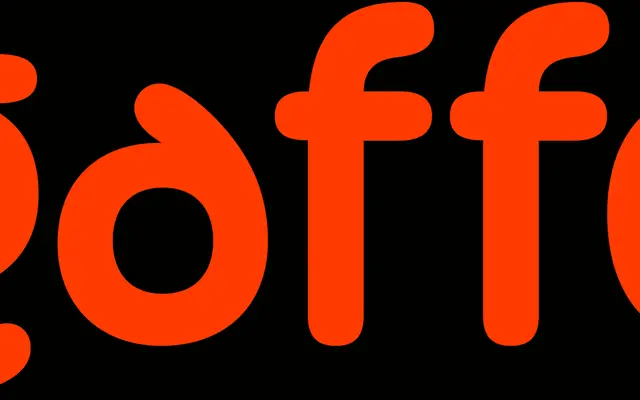
OZIK Soft
A rounded offshoot of Nuform Type's geometric OZIK, softening its sharp edges into warm, circular terminals inspired partly by VAG Rounded.
Built from the same circular geometry as OZIK, this variant replaces sharp details with rounded terminals across a range of weights from Regular to Black. The rounding process required significant redrawing, including adjustments to letter width, diagonal strokes and select letterforms that diverged from the original to preserve a distinct identity. Stylistic alternates for 'a', 'e' and 'g' are included to address legibility at smaller sizes.
OZIK Soft is a rounded geometric sans-serif with circular construction and soft terminals, derived from the geometric OZIK. Its rounded edges and welcoming curves place it firmly in the display category with geometric origins.